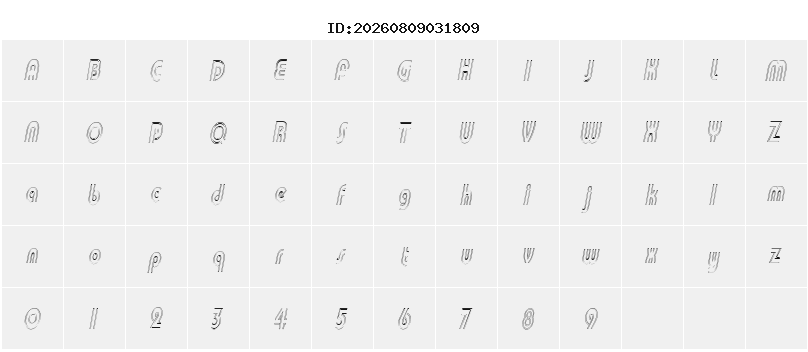
• Font Name: Pi in the SciFi
About Pi in the SciFi.ttf
Pi in the SciFi.ttf is a modern, elegant sans-serif font designed for ultimate readability and visual harmony. Perfect for branding, headlines, web design, and print materials.